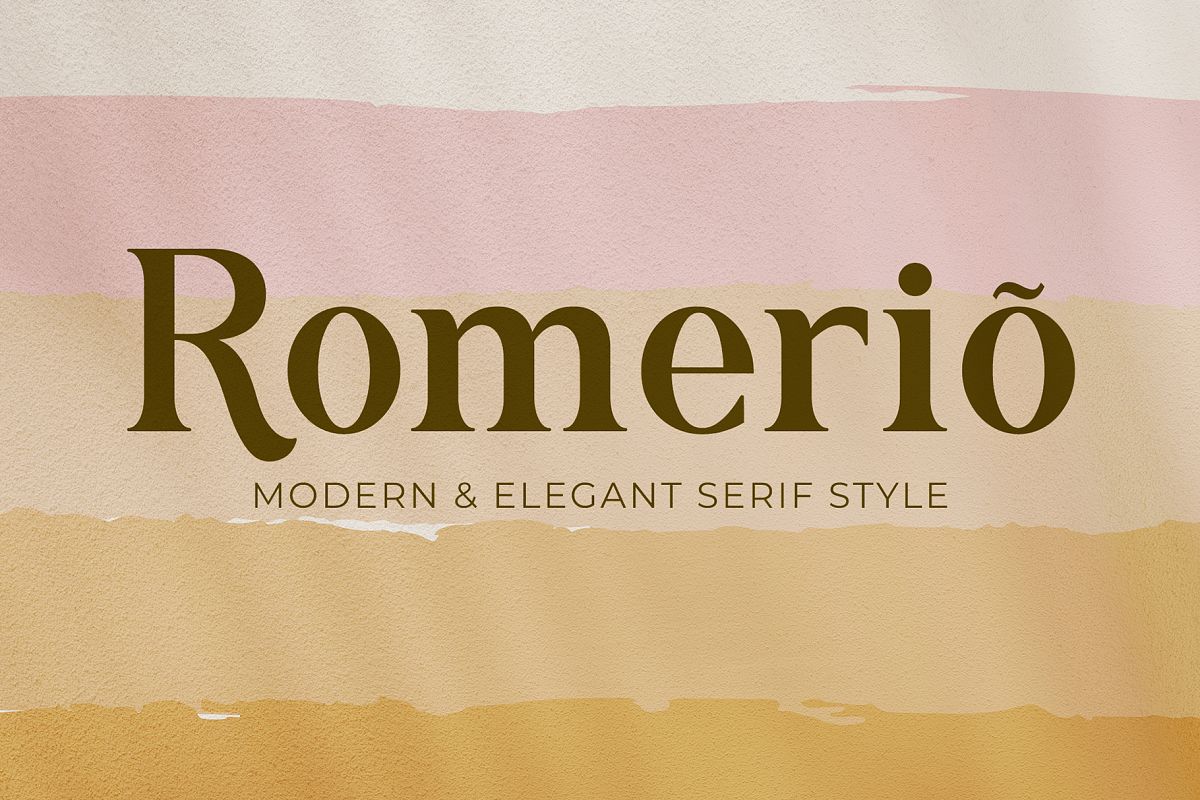
Romerio | Elegant Serif Style
Romerio
Romerio Italic
Romerio is modern and elegant serif with a single weight, this perfect use for headline, logo, magazine, and any editorial design needs also readable body text.